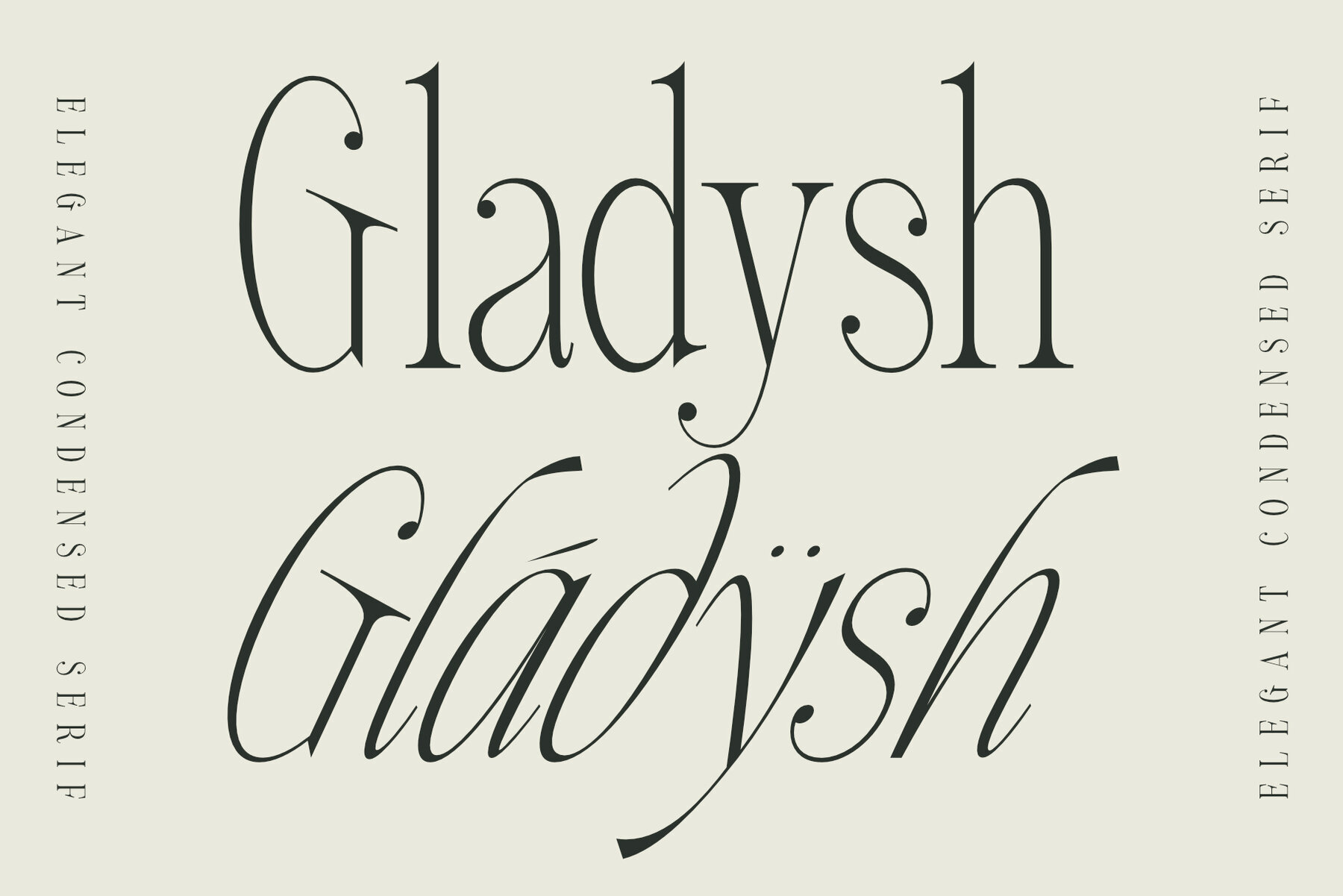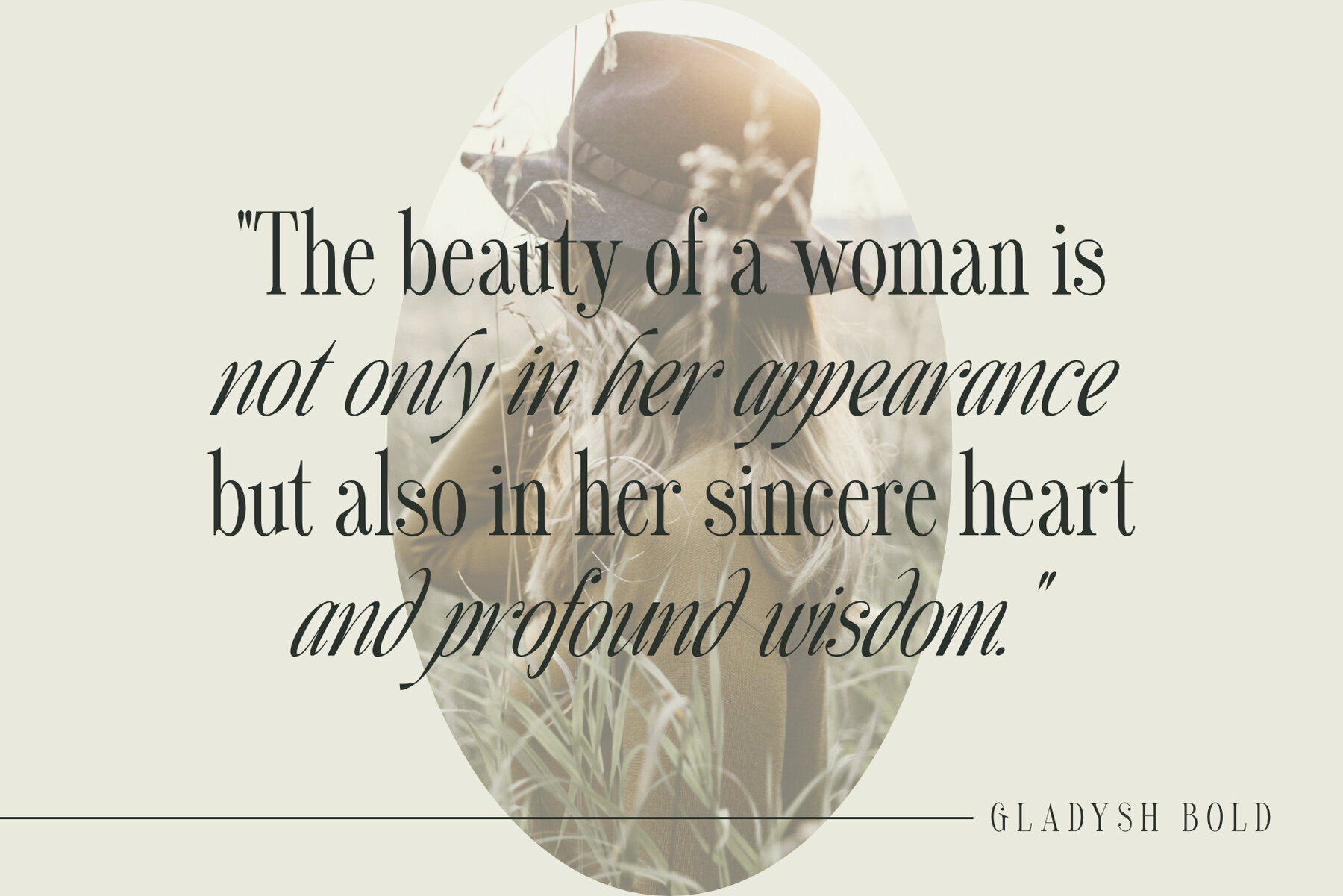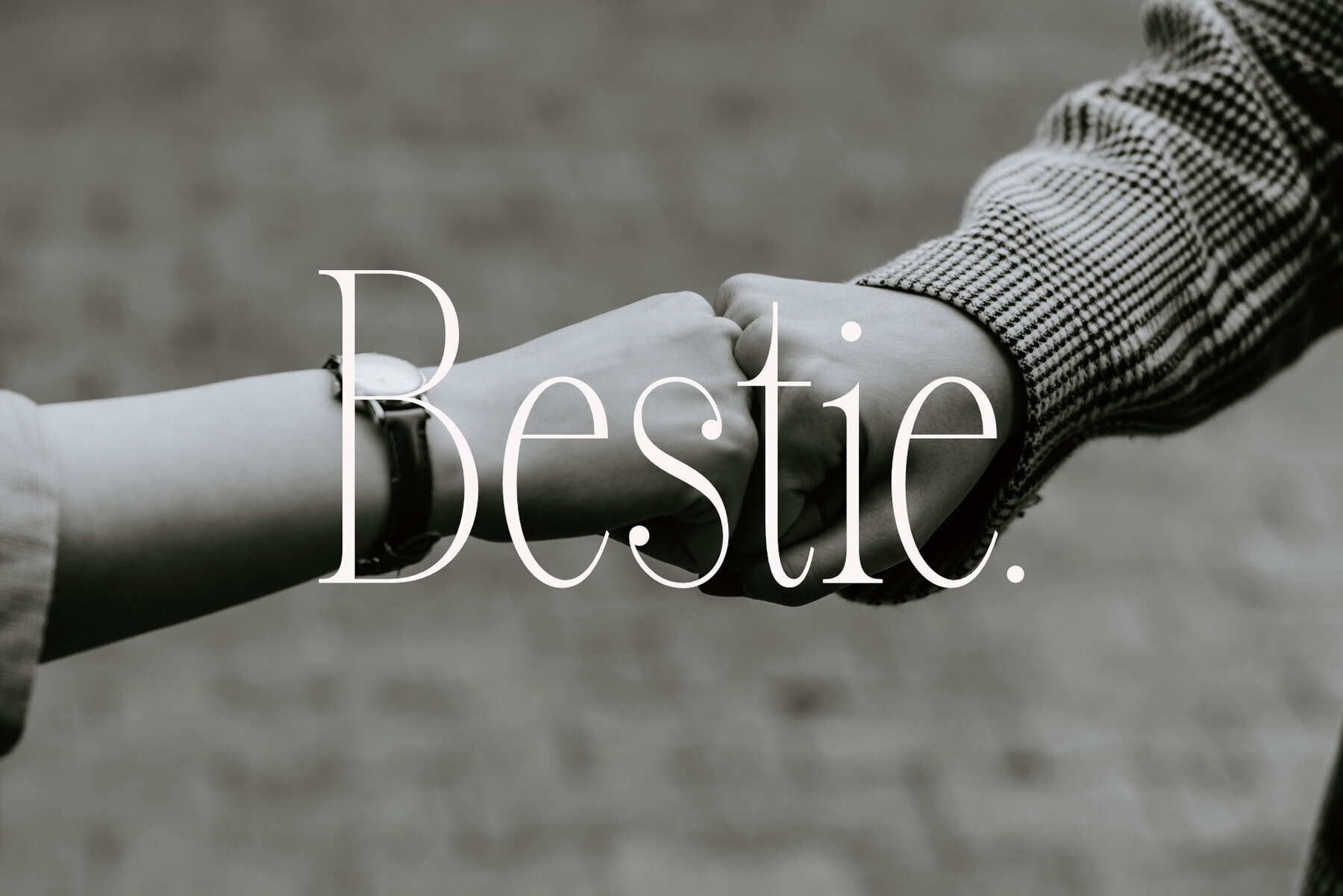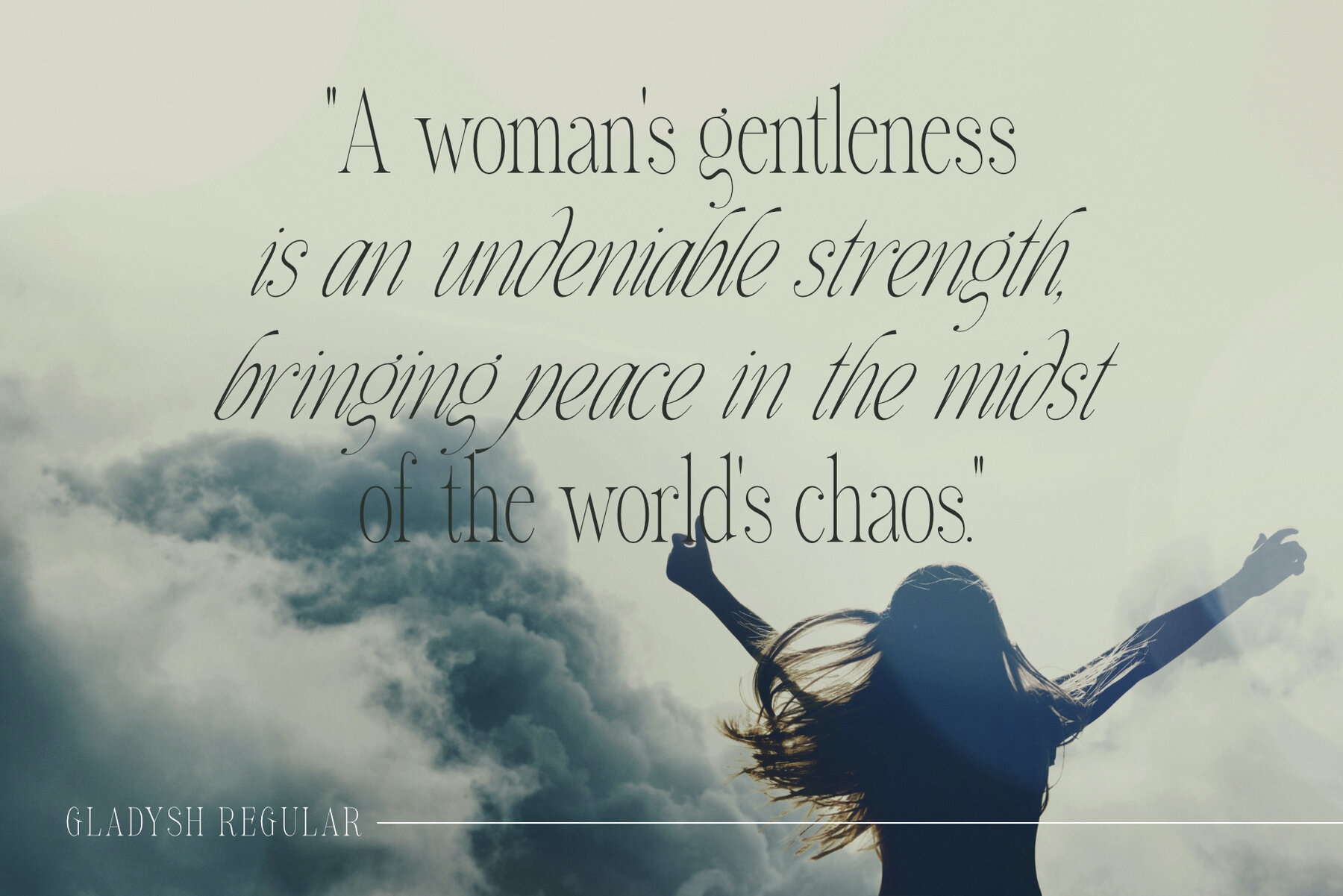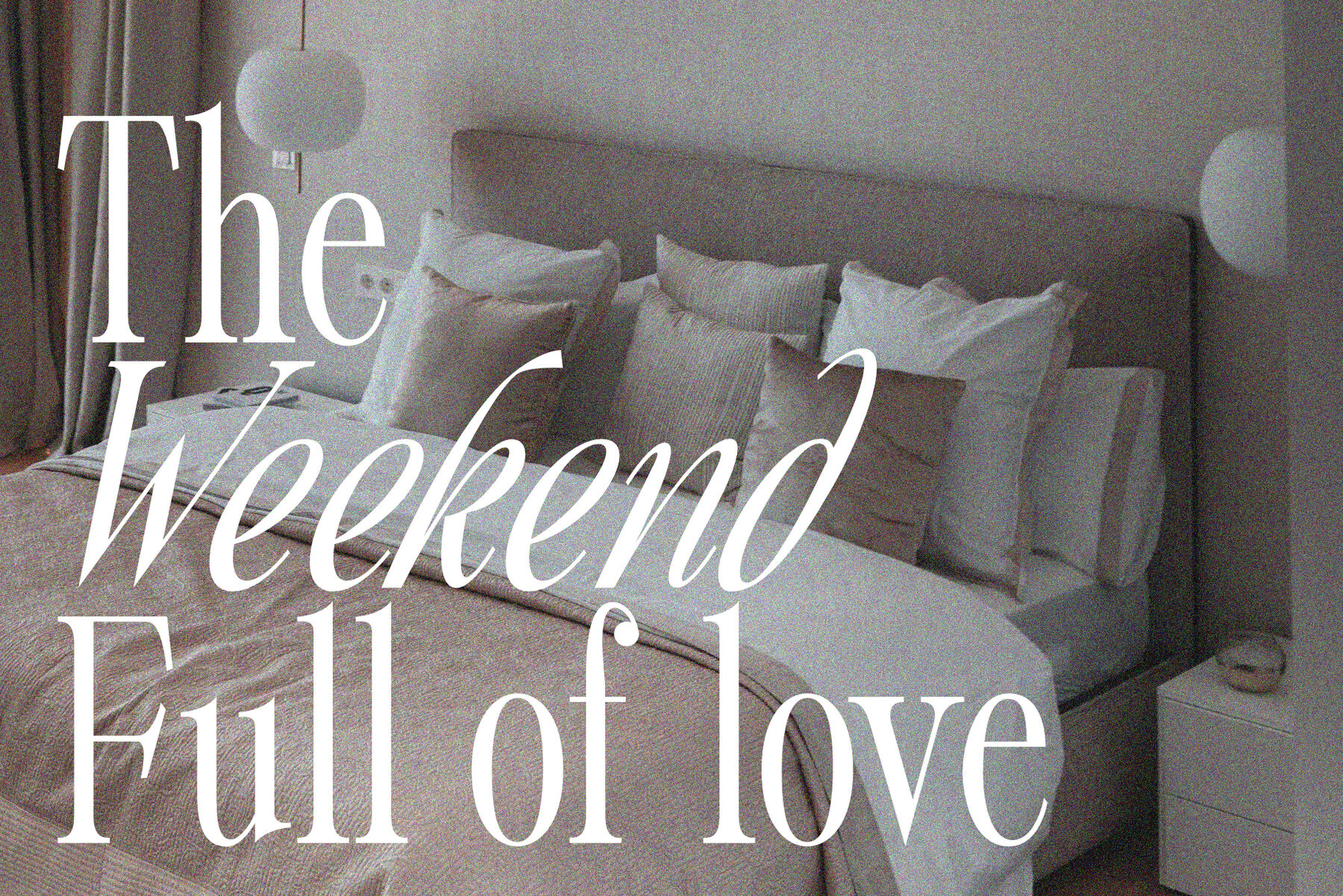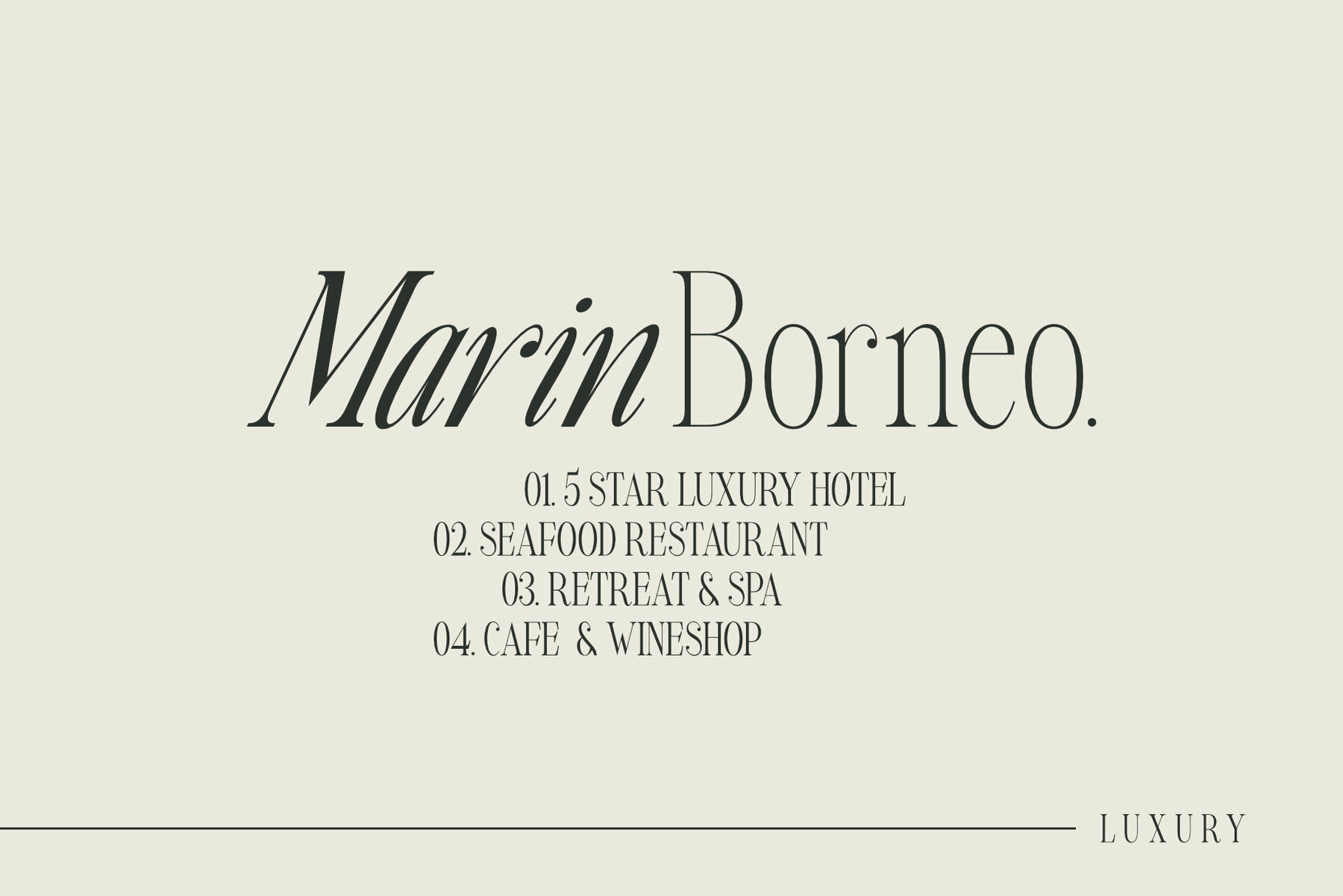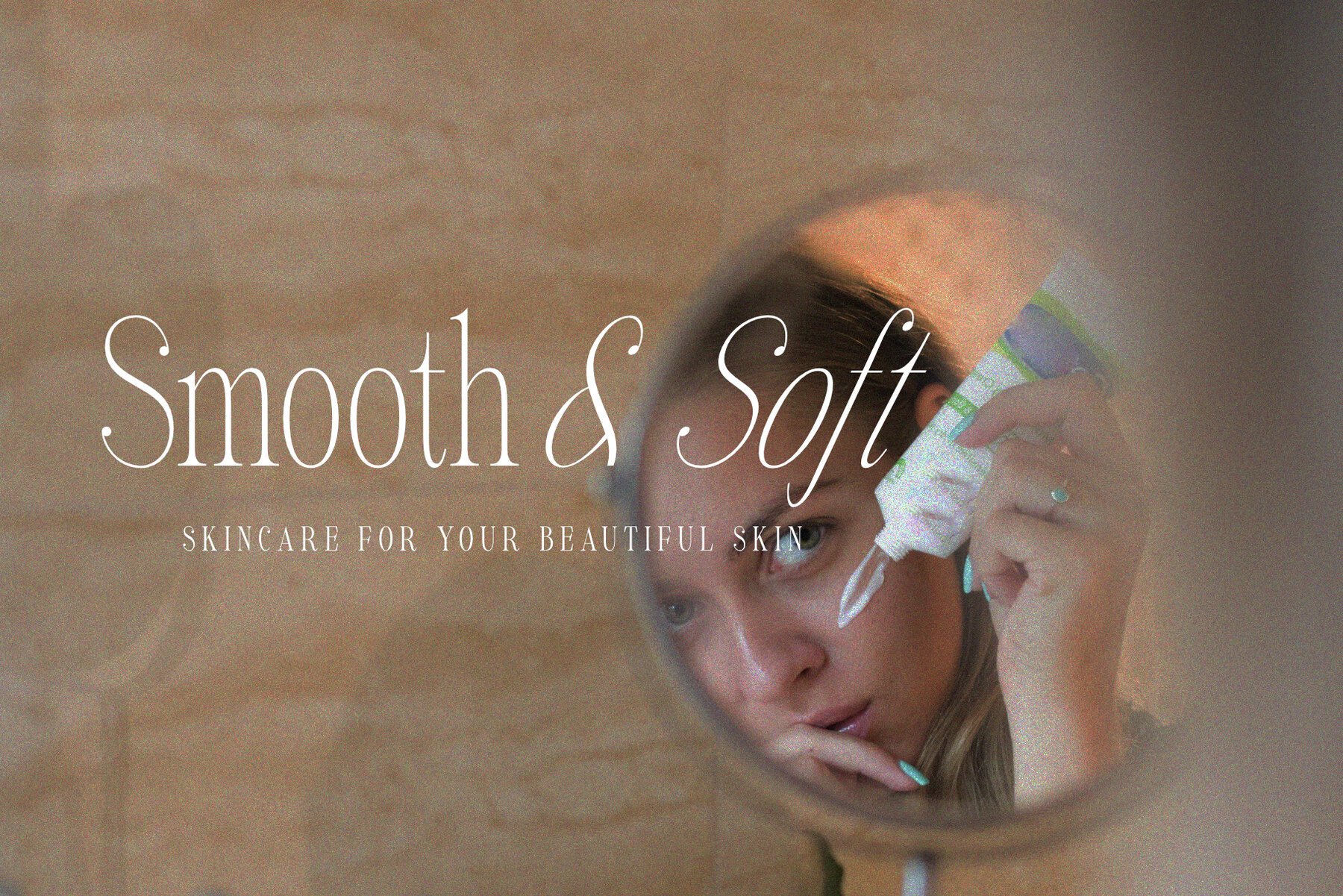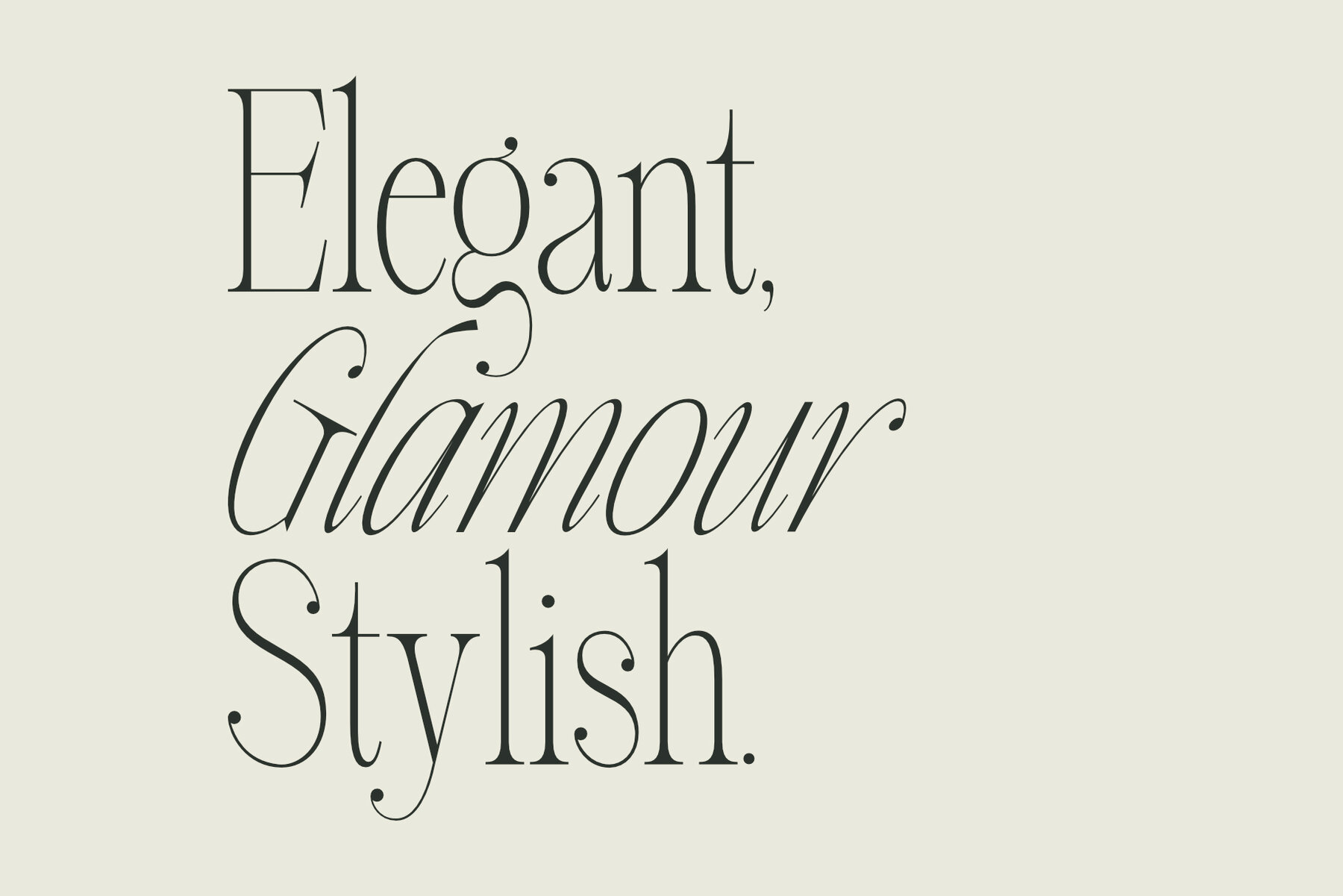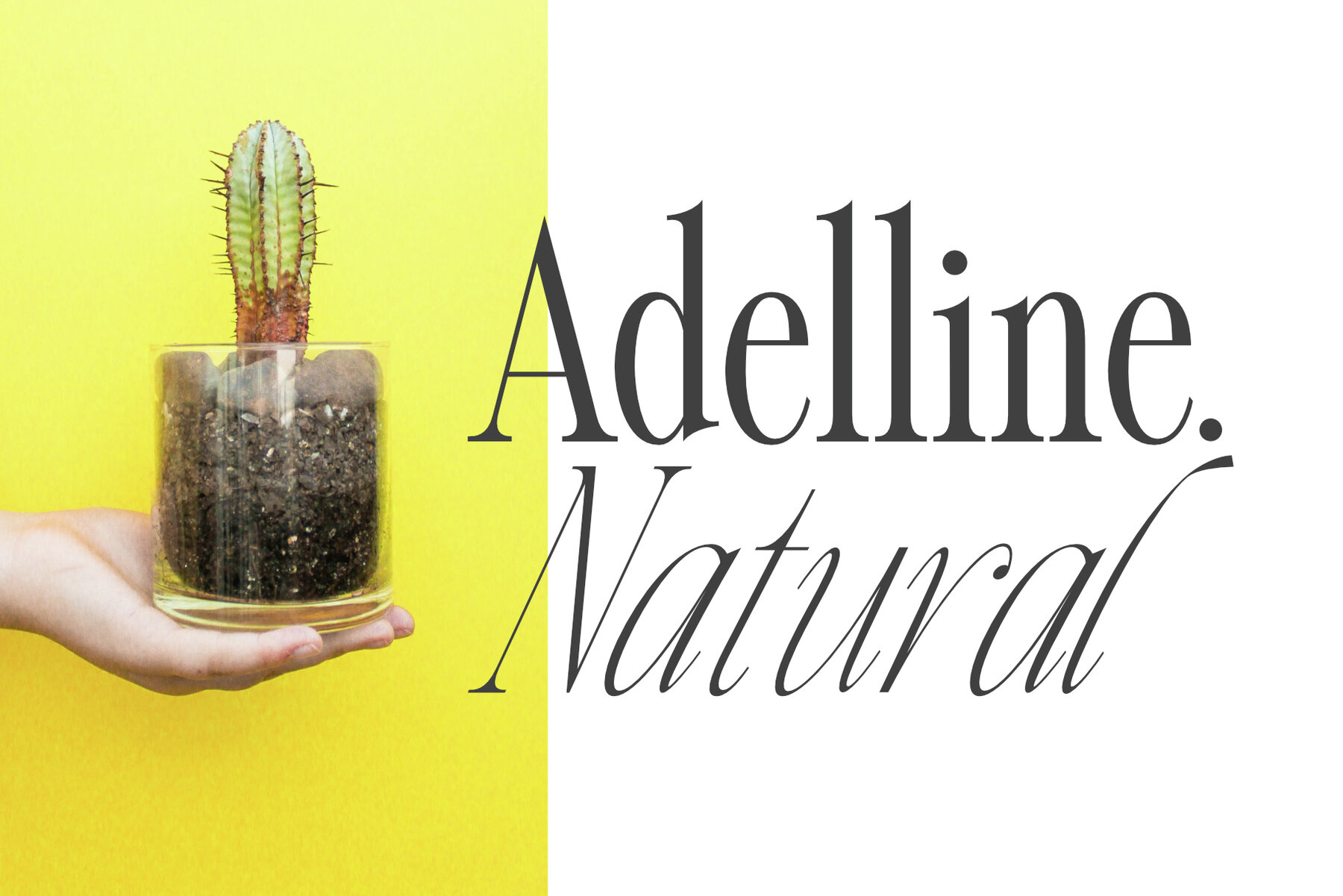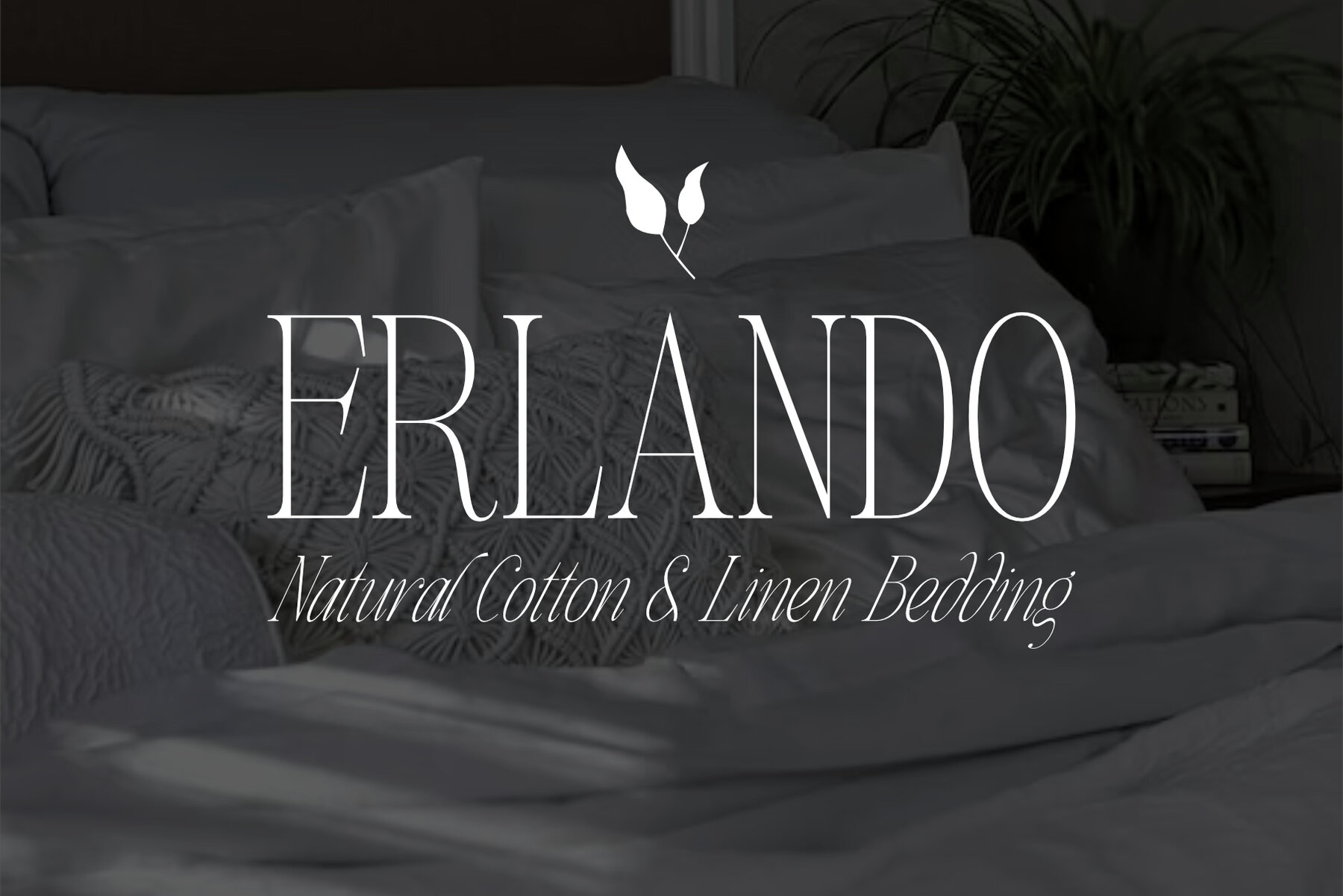
Gladysh Font
Gladysh is a unique blend of elegance and boldness crafted to meet diverse design needs. Its versatile nature makes it ideal for both modern and classic projects.Gladysh: Elegant Condensed Serif Typeface